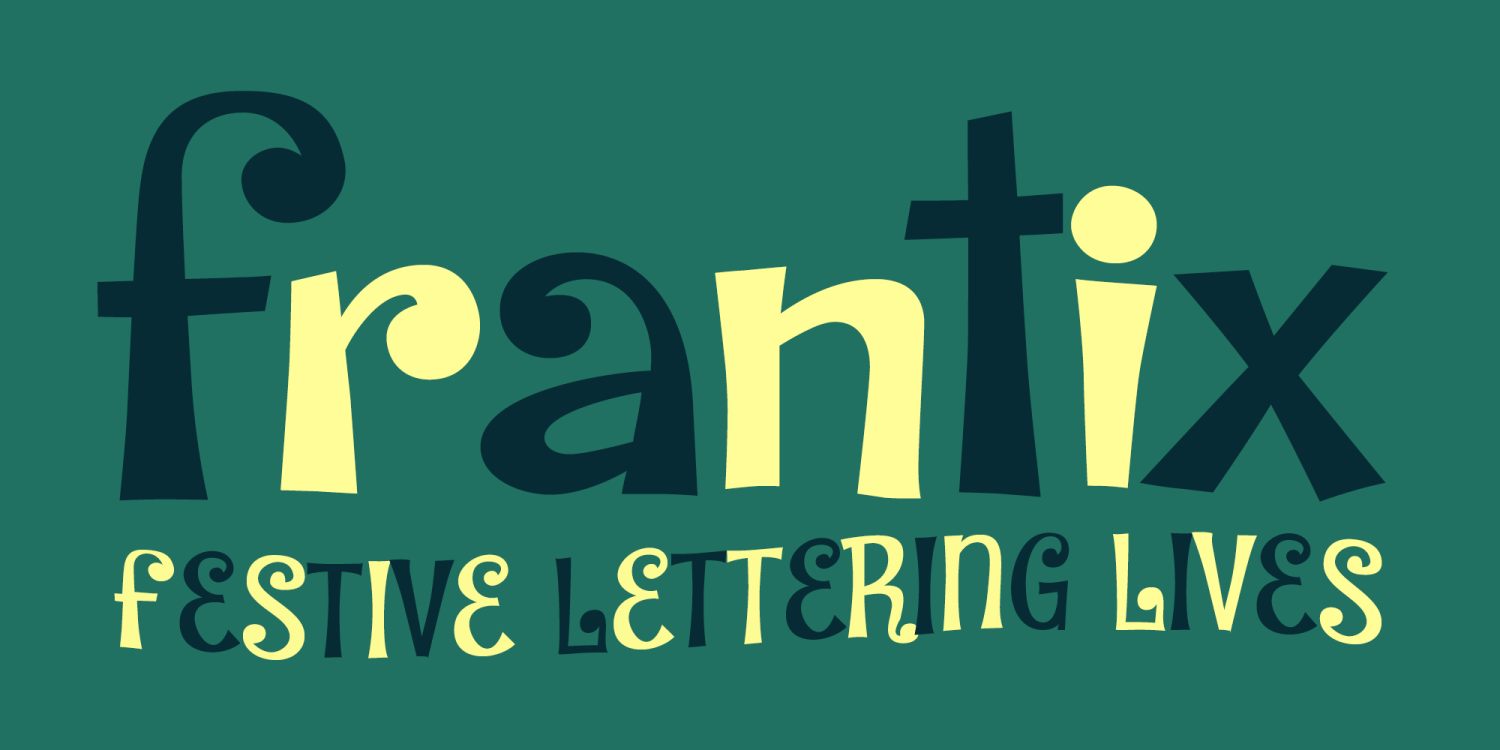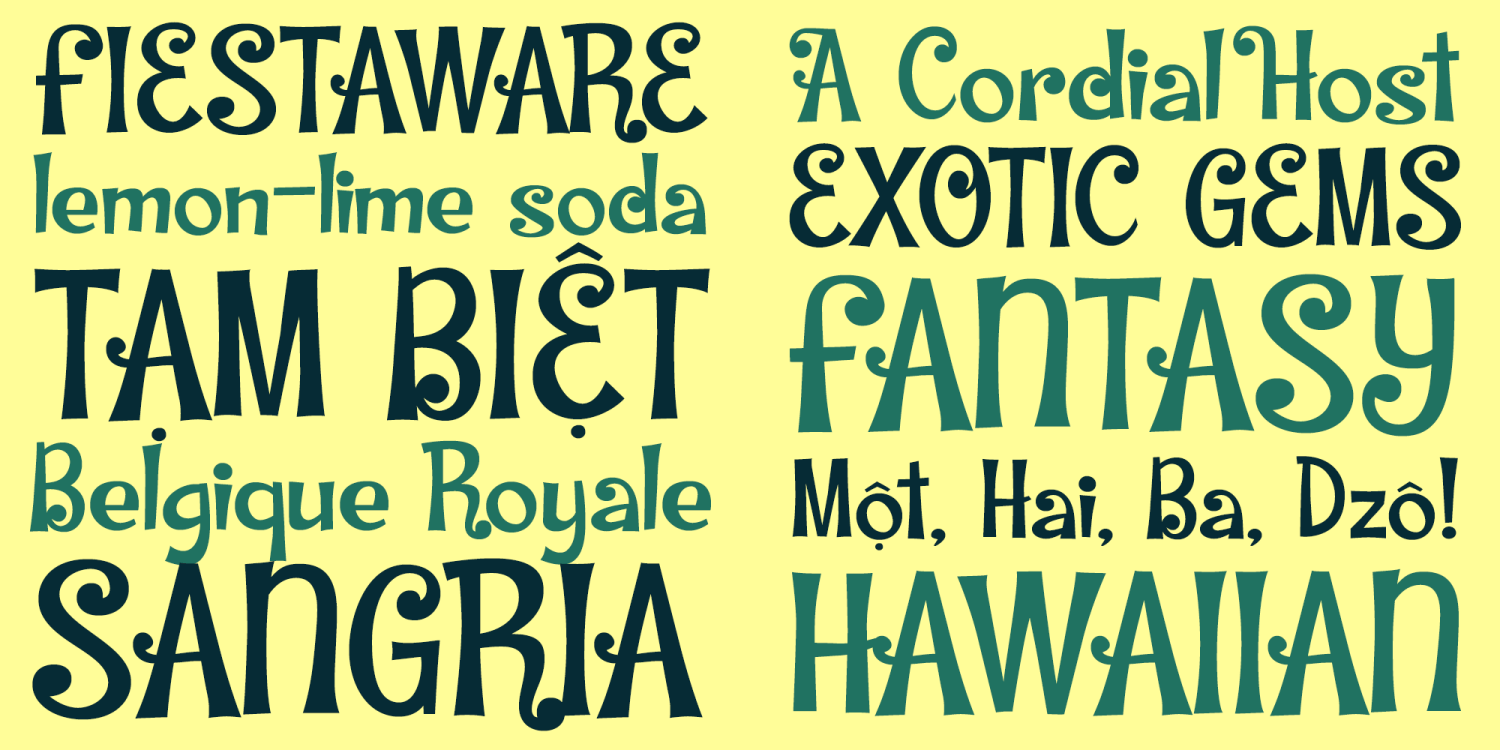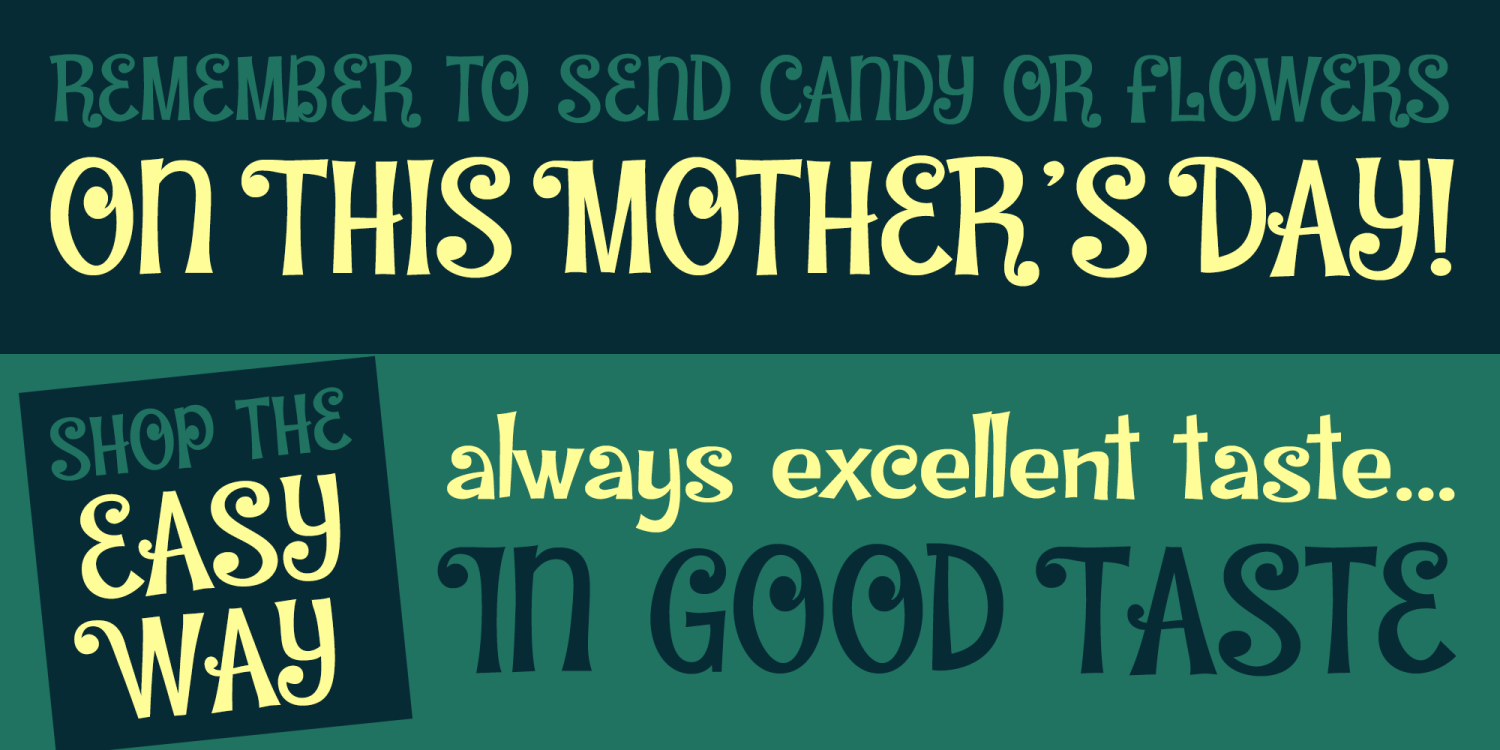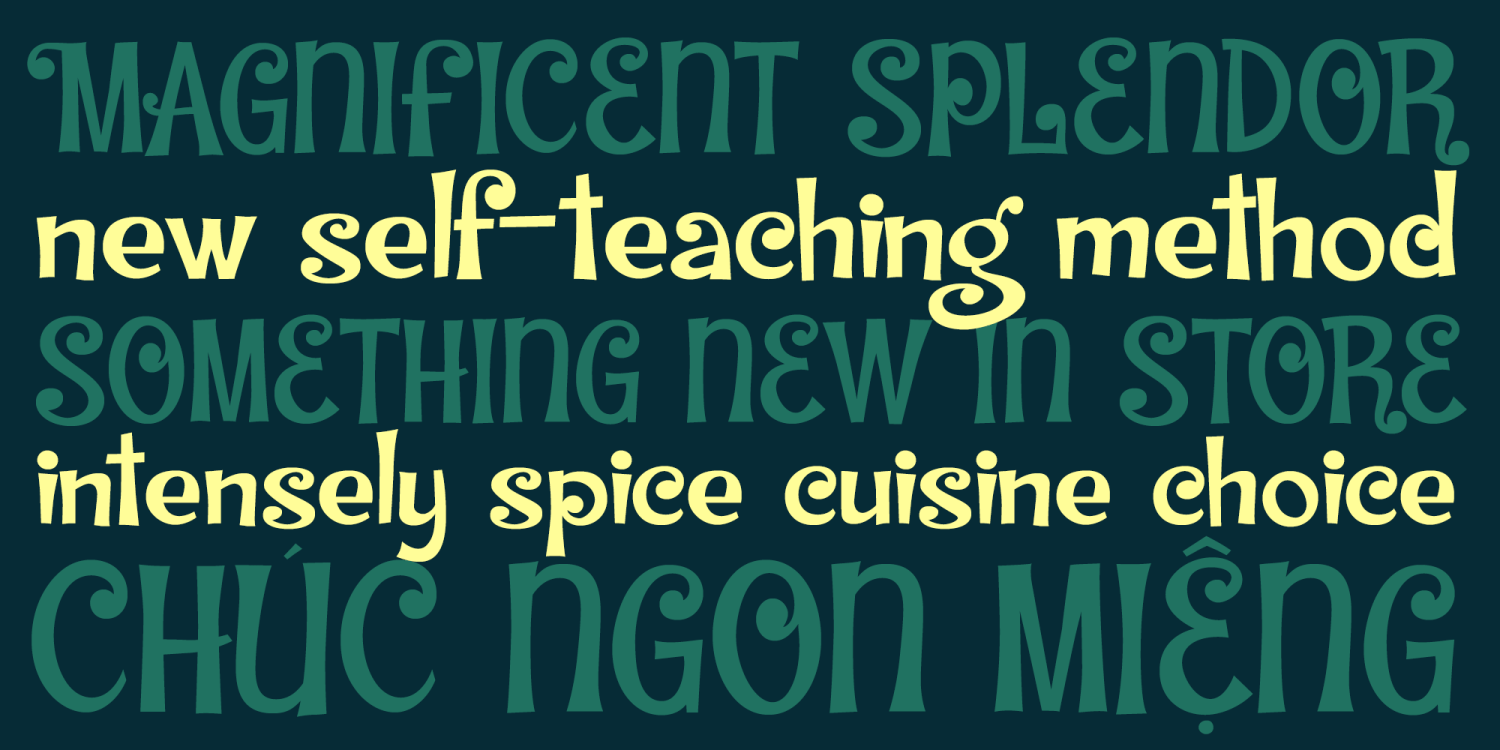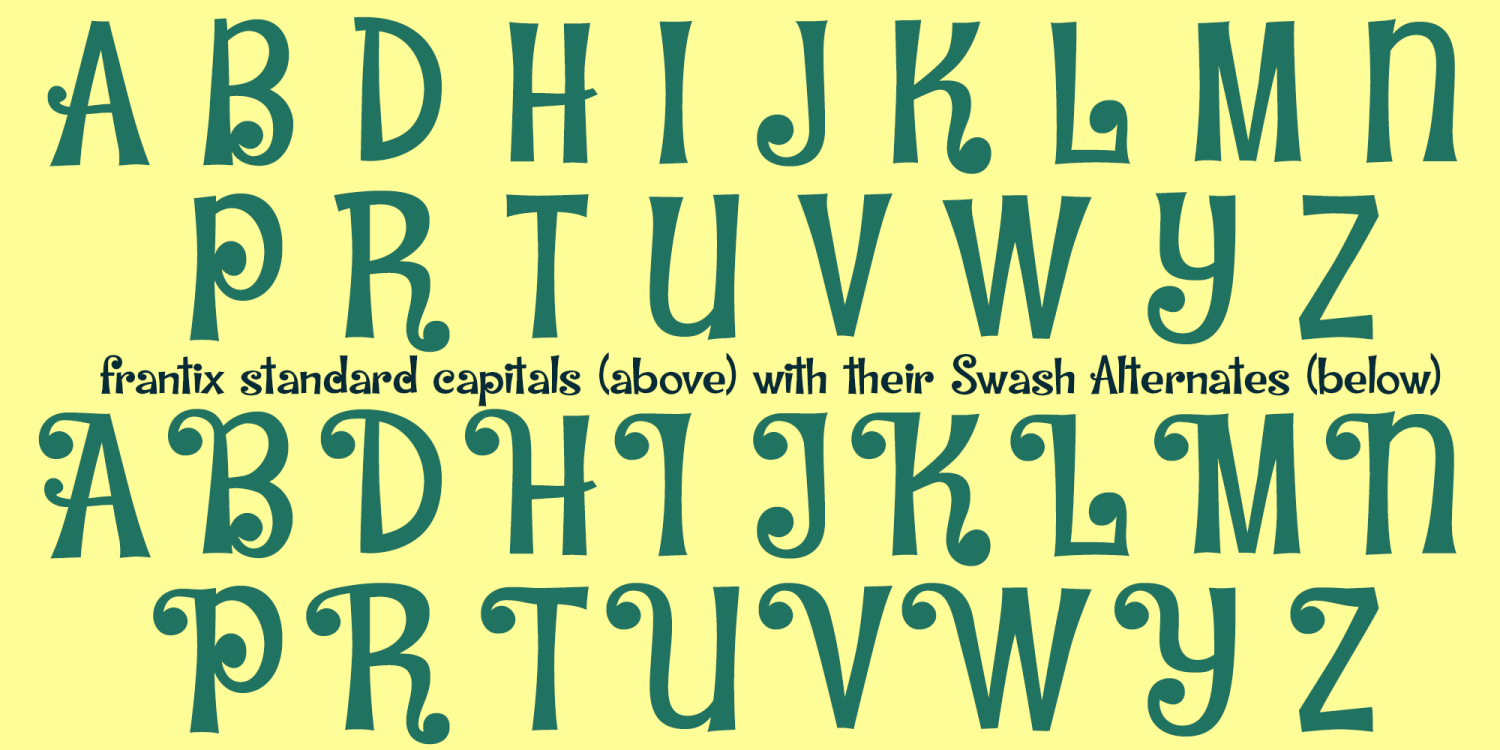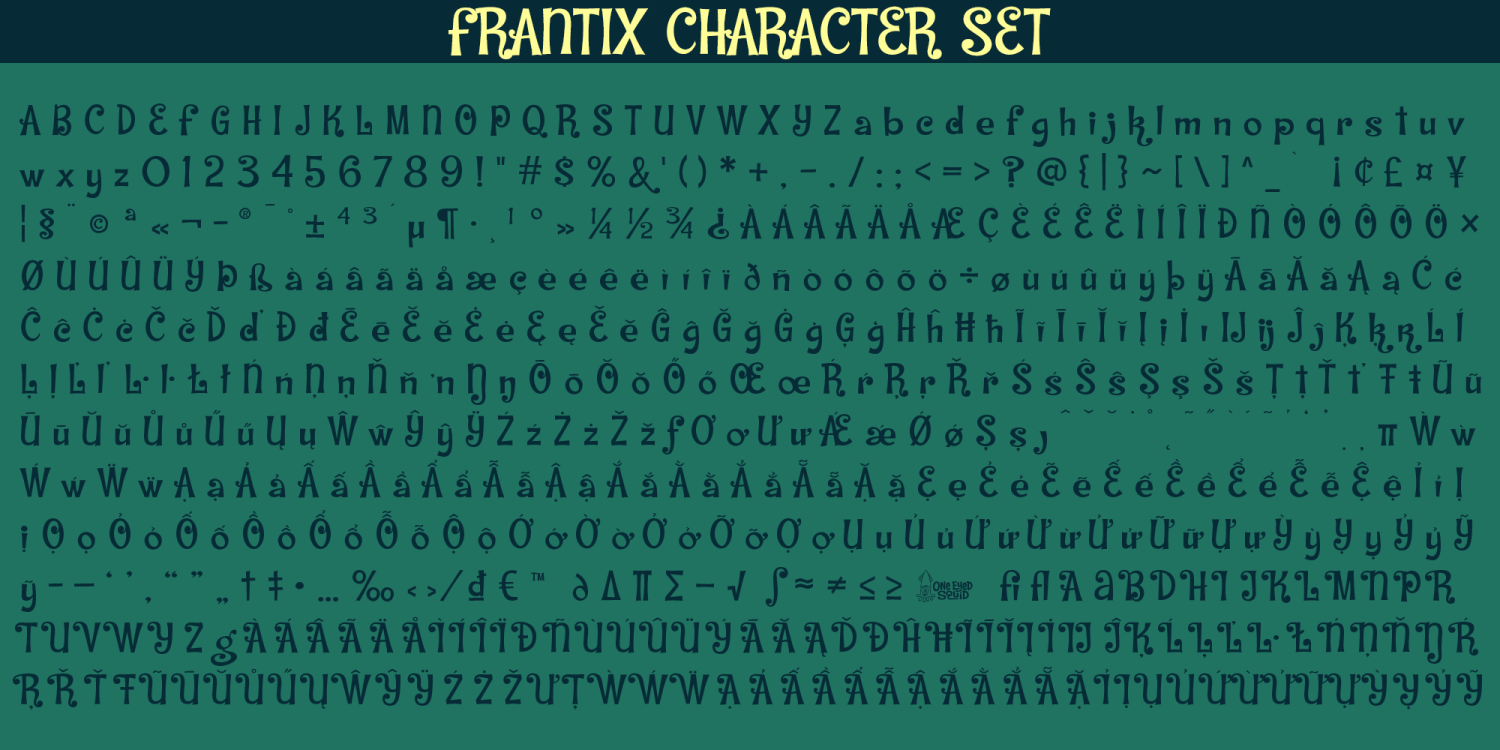
Frantix
Frantix is a festive display font bursting with fun, frivolity, and playful character. Its lively letterforms bring a cheerful, energetic voice to design projects that call for charm, movement, and a touch of typographic mischief. Perfect for headlines, posters, branding, packaging, invitations, greeting cards, social media graphics, and other upbeat creative work, Frantix delivers a spirited and memorable look with strong decorative appeal. Activate the Swashes OpenType feature to access a swapped collection of swash capital alternates for even more expressive styling. Includes extended Latin language support, including Vietnamese.